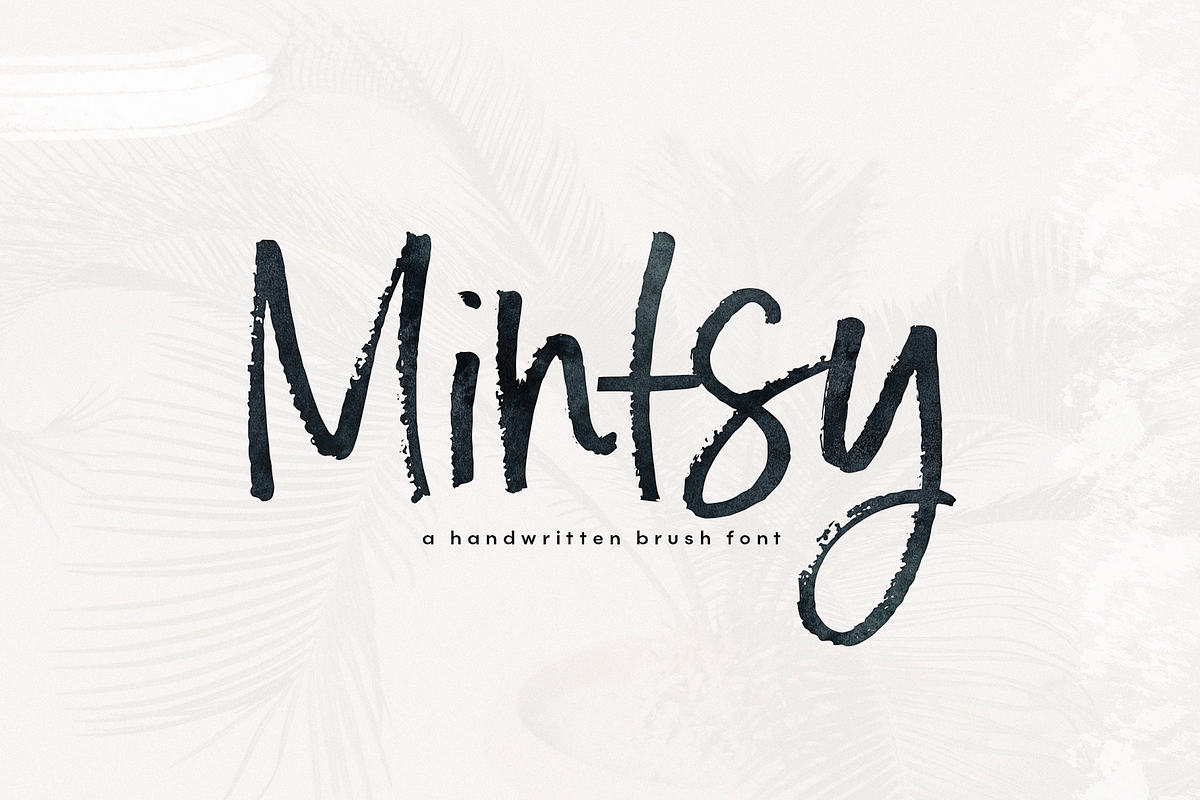
Mintsy - Handwritten Brush Font Free Download
Mintsy - Handwritten Brush Font Free Download is a creative and expressive script typeface with a natural, handwritten brush style. Perfect for logos, branding, invitations, social media graphics, and more, Mintsy offers an artistic, personal touch to your designs. Its dynamic brush strokes bring a sense of movement and energy, making it ideal for projects that require a fresh, bold look.